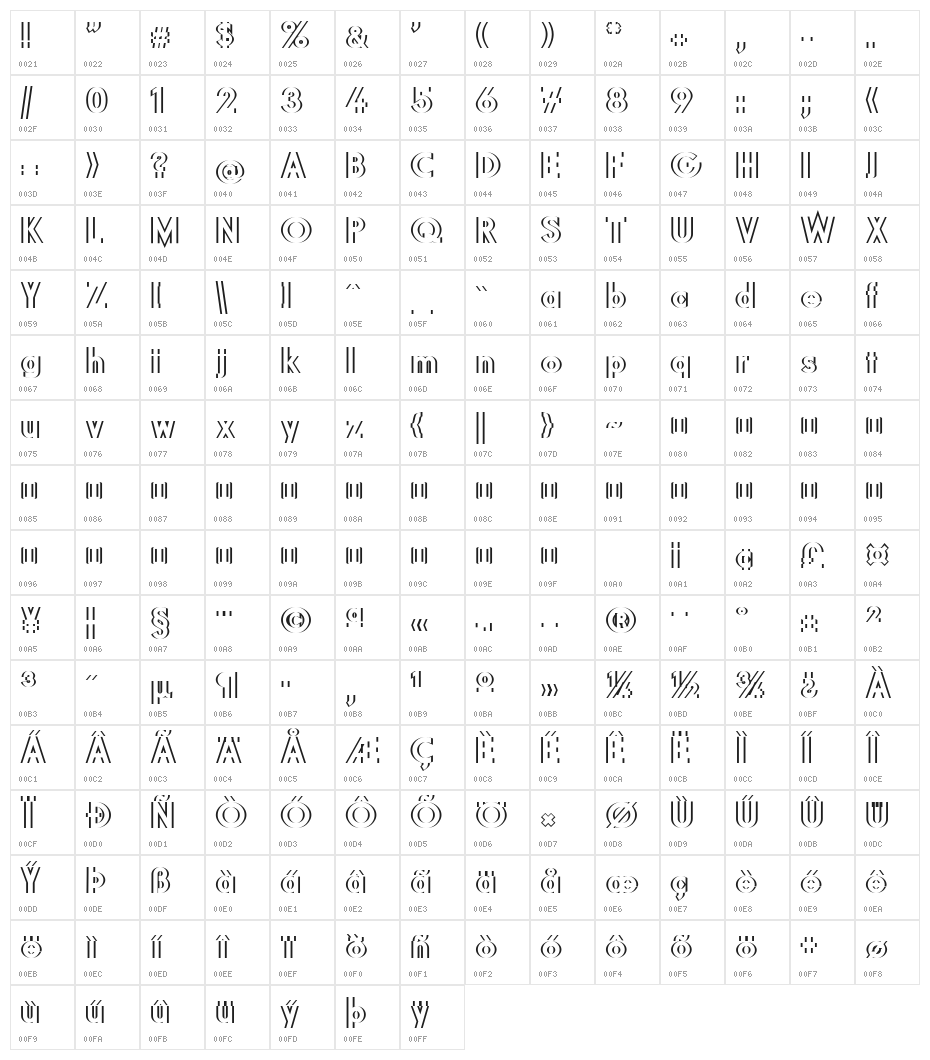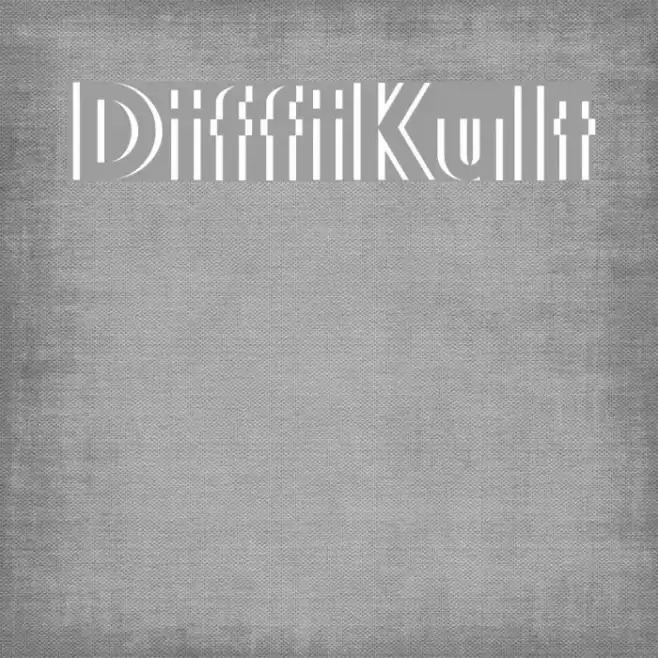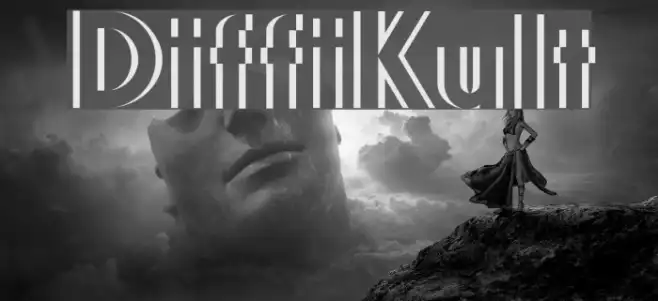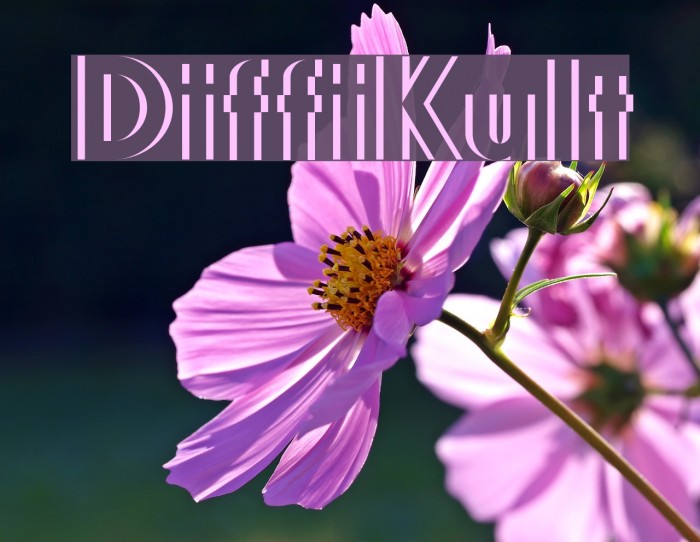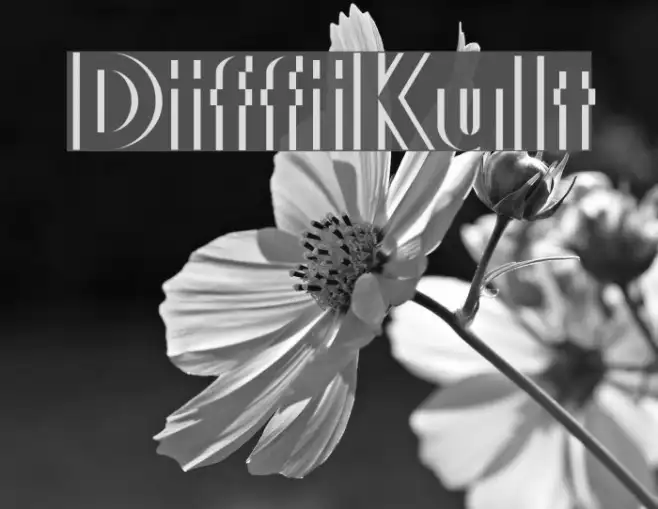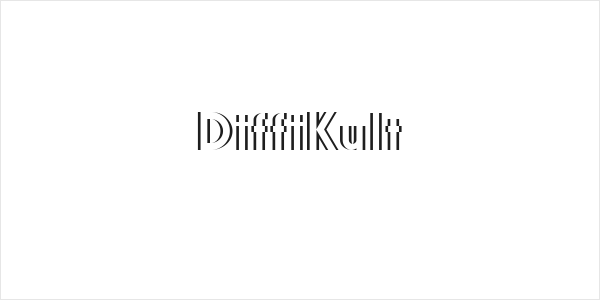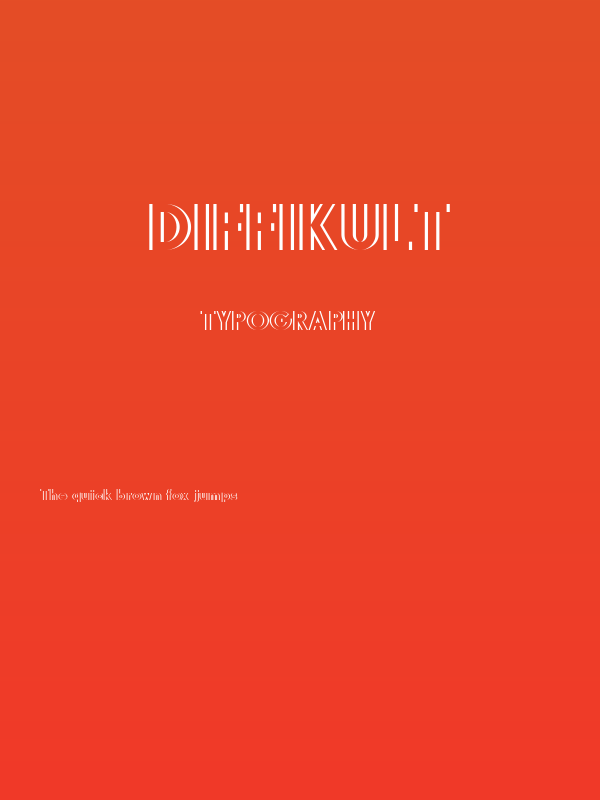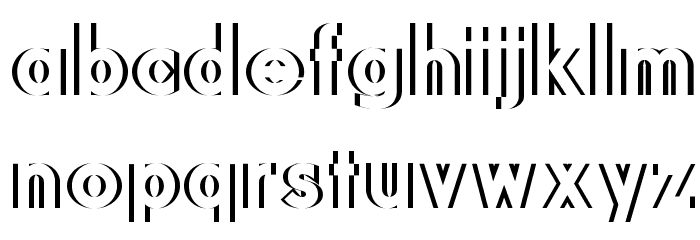
DiffiKult Font
DiffiKult Description
This font exhibits a bold and modern design with a distinct geometric style. The characters are crafted with a combination of solid and outlined segments, creating a dynamic and eye-catching effect. The uppercase and lowercase letters maintain a consistent aesthetic, with sharp angles and clean lines. The numerals and special characters follow the same design principles, ensuring uniformity across all glyphs. This font's unique style makes it suitable for projects that require a contemporary and innovative look.
| Proposed Projects | Ideal for branding, advertising, posters, and digital media that require a striking and modern appearance. |